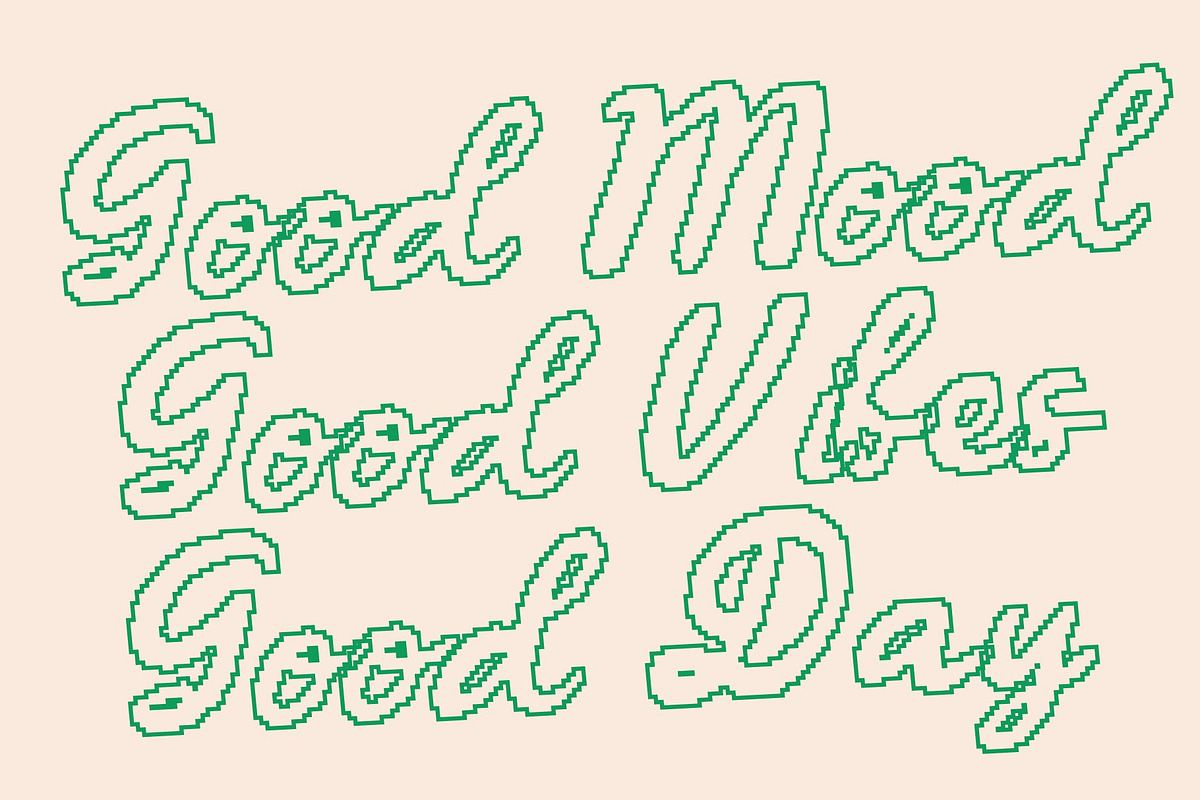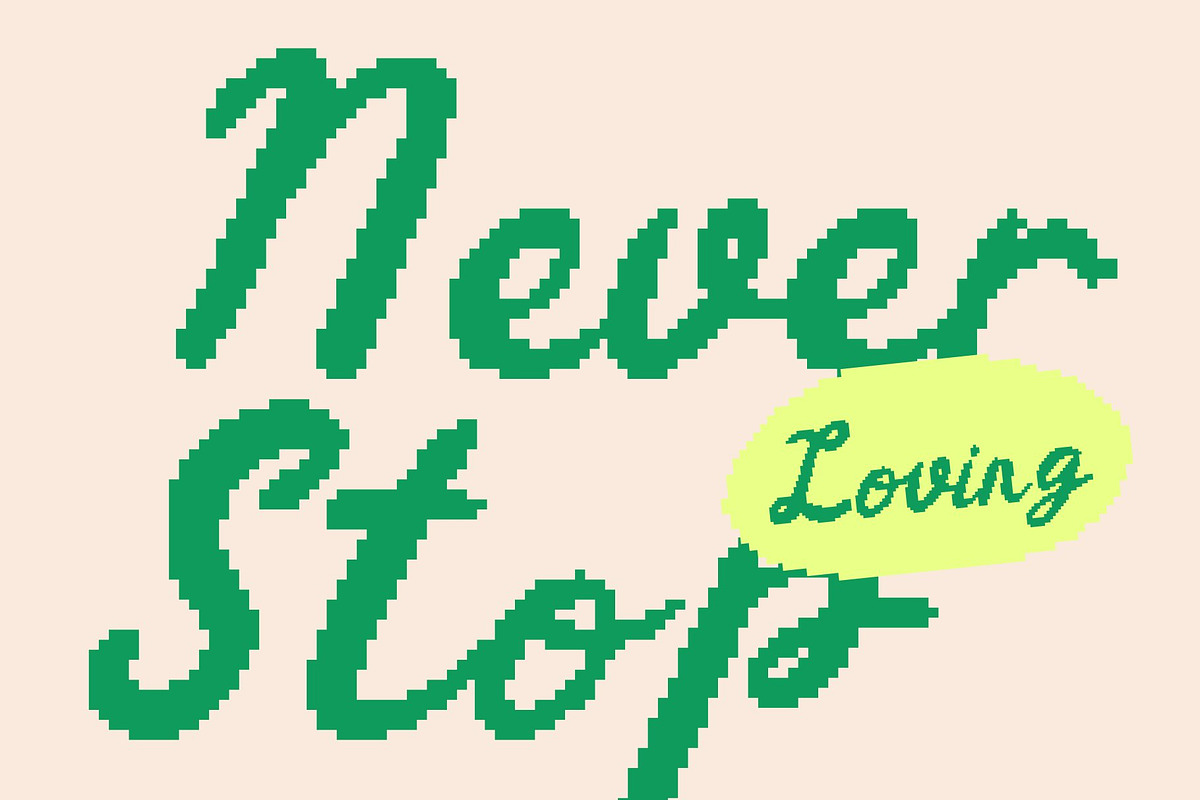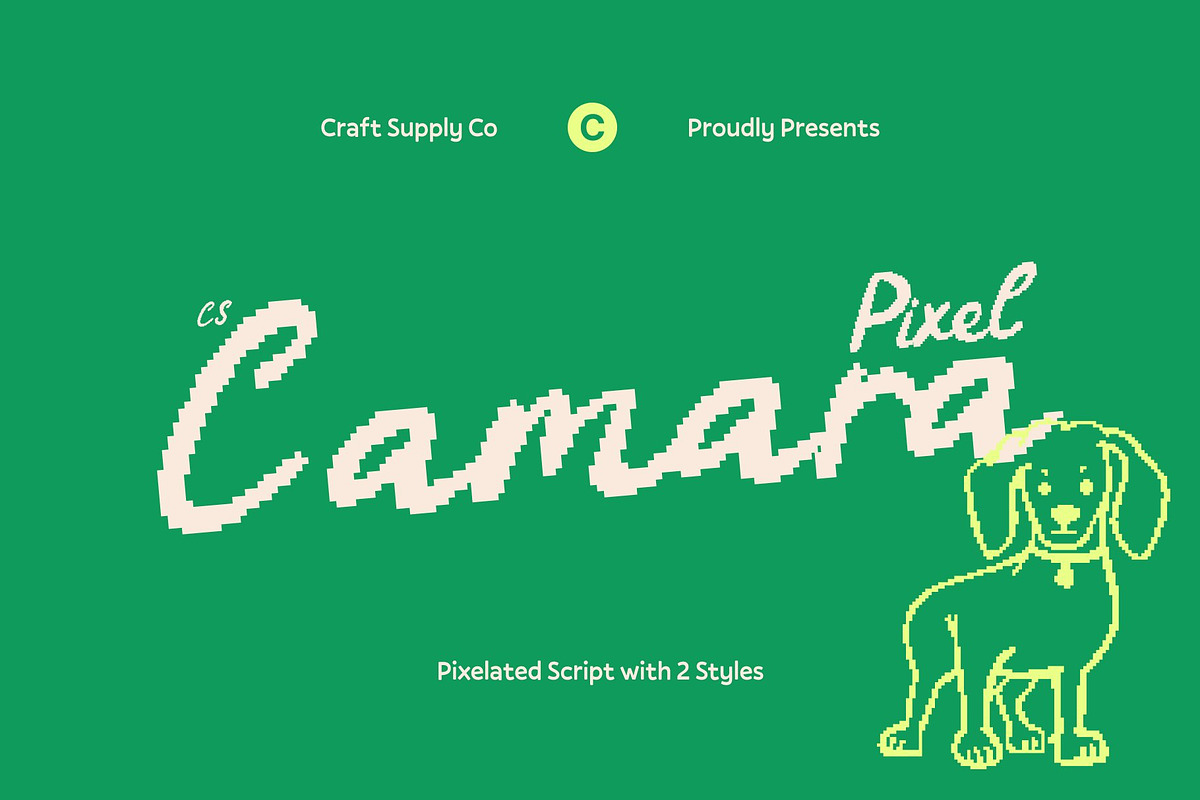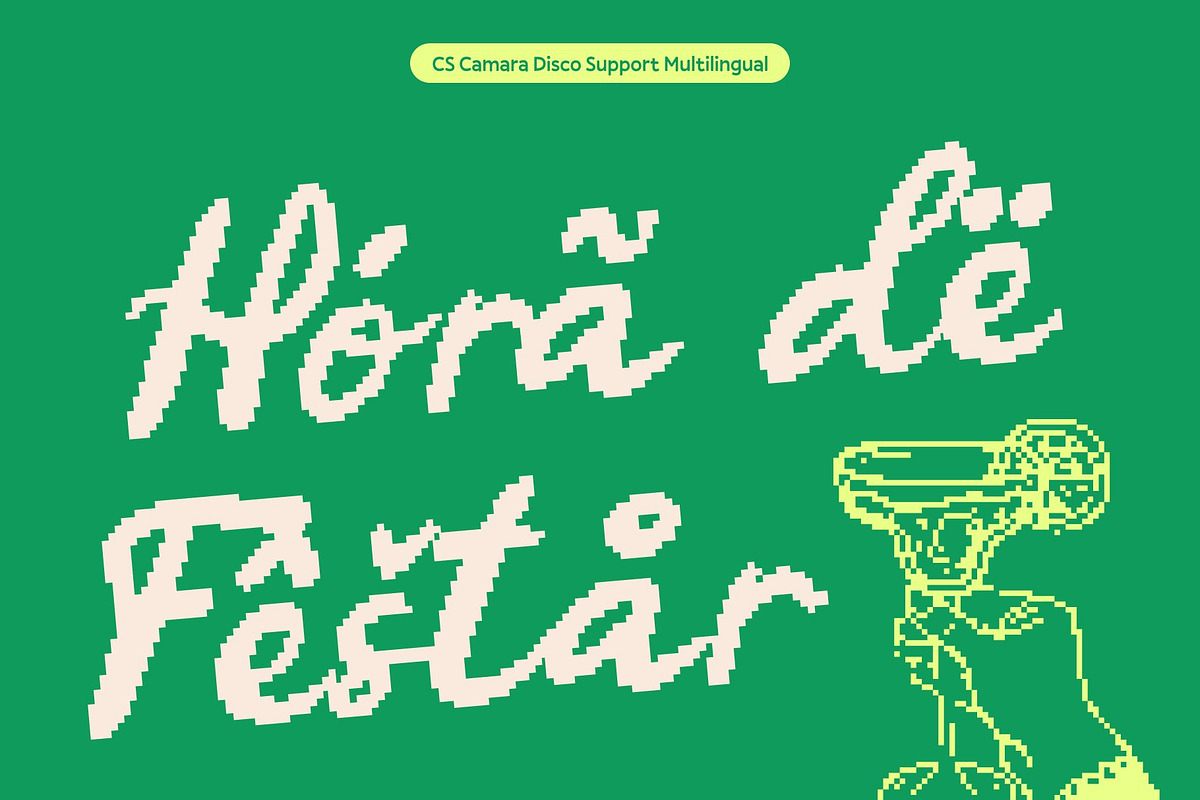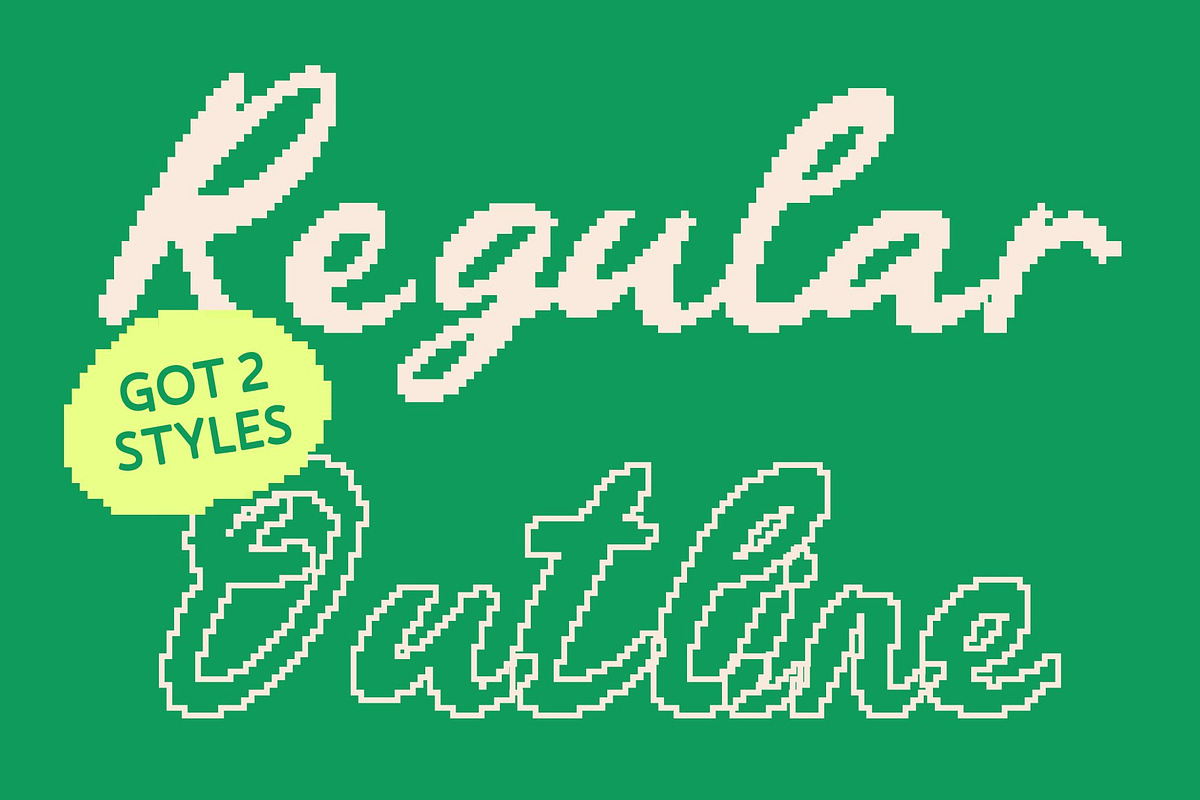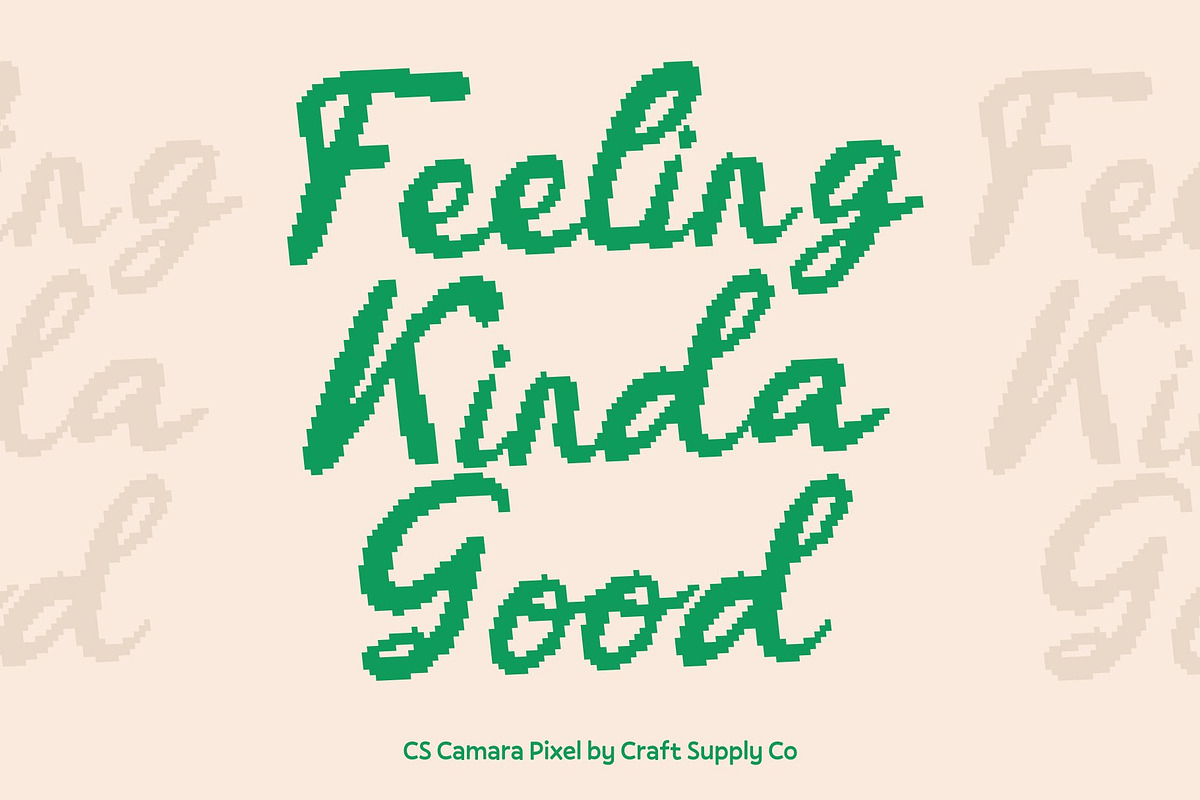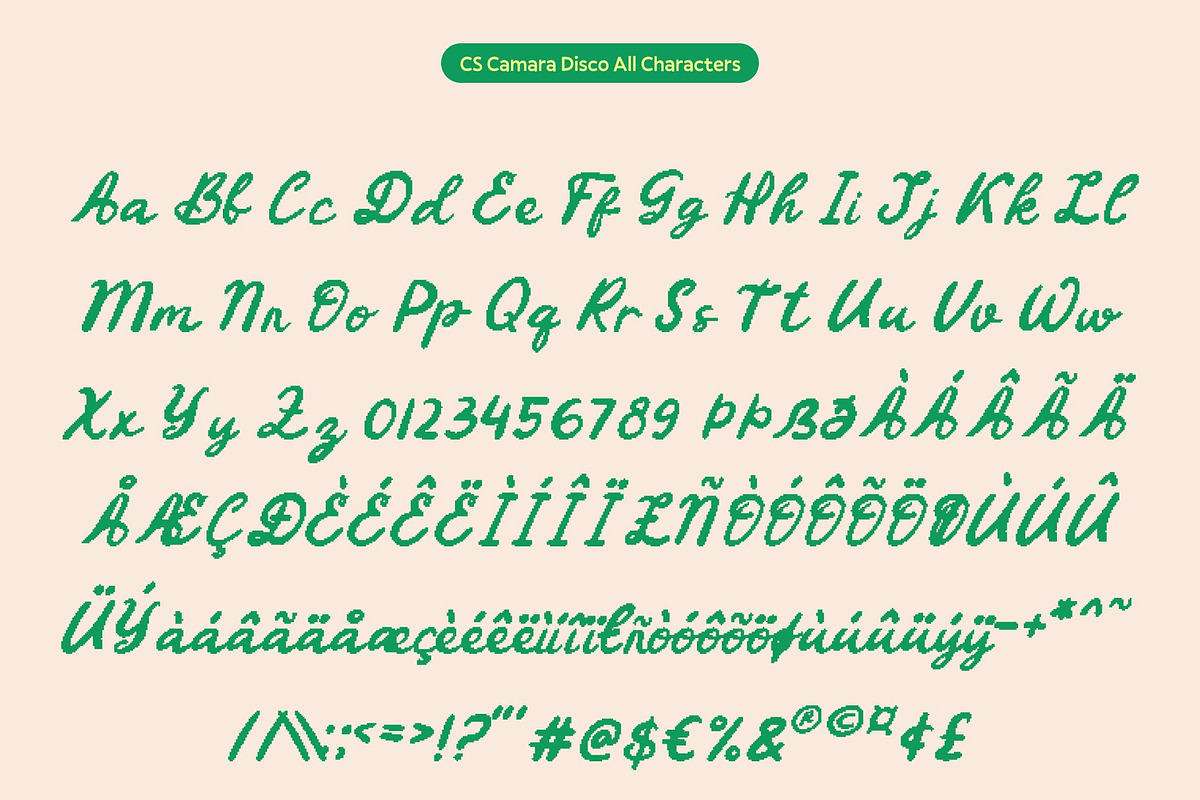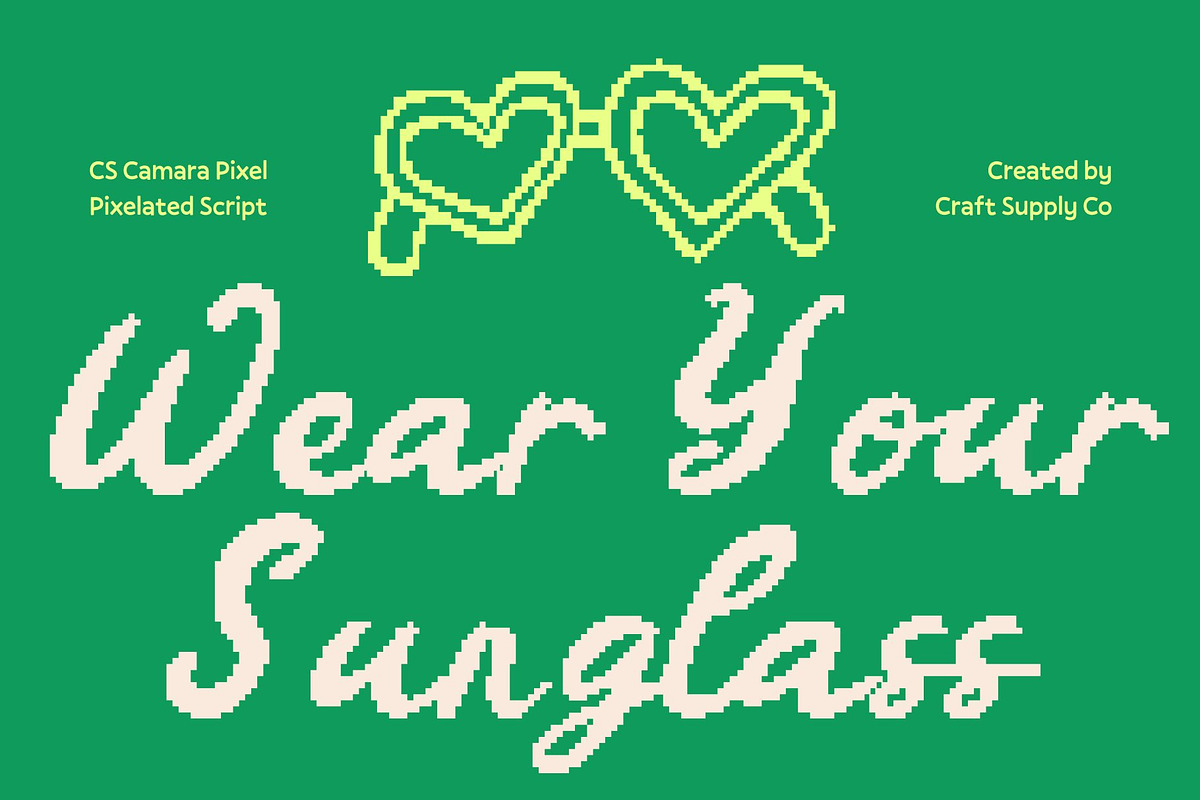
CS Camara Pixel
CS Camara Pixel – Graceful Flow with Artistic Pixelated Beauty
Handwritten Script with Elegant Flow This is a refined handwritten script font that blends smooth, flowing strokes with expressive charm. Its natural cursive movement delivers sophistication and warmth, creating lettering that feels personal, graceful, and visually captivating.
Artistic Pixel Effect with Refined Details Enhanced with a subtle pixel structure, this font gains a distinctive digital character without losing its elegance. The pixelated treatment adds texture and visual interest, evoking a retro-technology feel inspired by early digital screens and classic computer graphics while remaining polished and stylish.
Sophisticated Style for Digital and Modern Visuals The combination of flowing script and pixel precision creates a unique contrast between organic beauty and structured digital form. This balance makes this font especially eye-catching in digital layouts, old-tech themed visuals, and contemporary designs seeking a refined yet experimental look.
Perfect for Luxury and Expressive Branding Ideal for luxury branding, logos, editorials, fashion visuals, packaging, and modern digital design, this font delivers elegance with personality. Its artistic pixel style makes it stand out beautifully on screens, bringing a nostalgic digital charm that feels both timeless and modern.
- CS Camara Pixel Regular
- CS Camara Pixel Outline